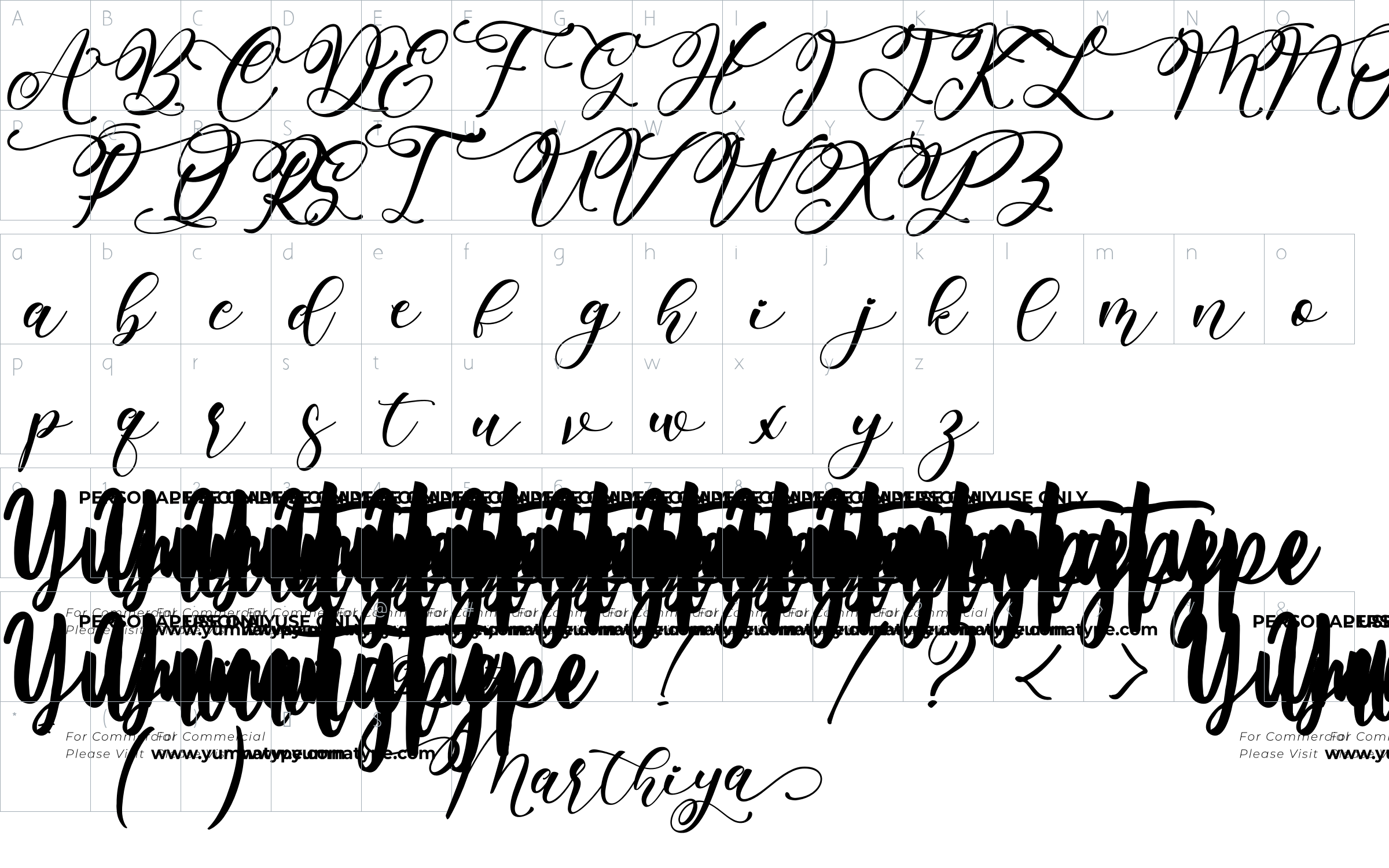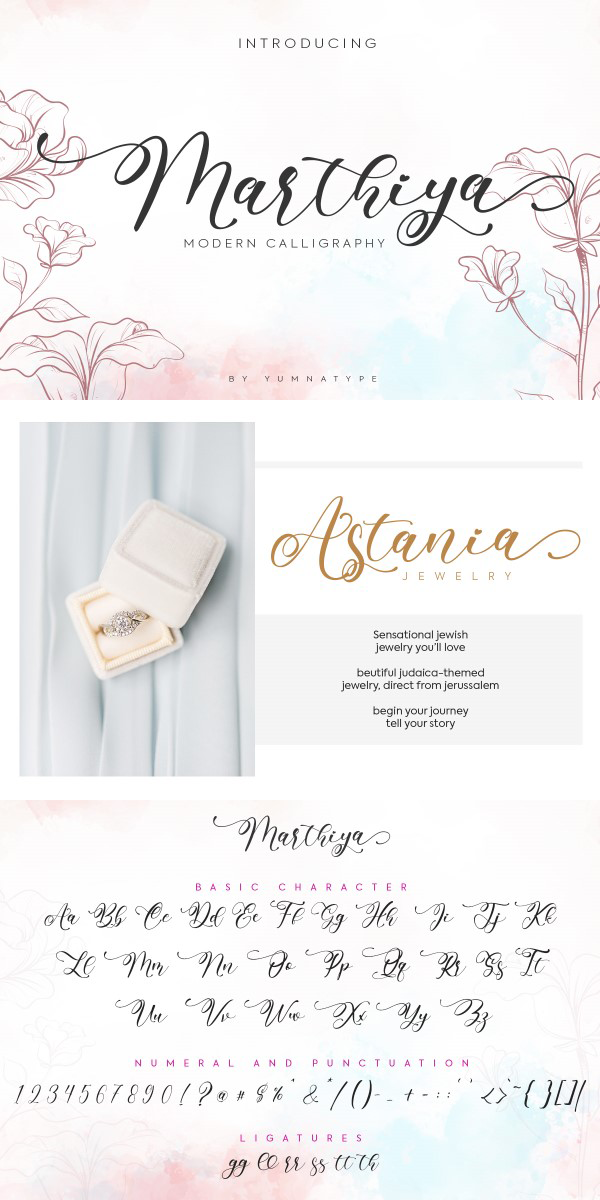
Marthiya Font
About Marthiya
Say hello to Marthiya Script.
Marthiya is a beautiful and modern script.
It brings a beautiful and modern typeface that best used for weddings, branding, logotype, and quotes.:
-6 Ligatures
-115 Beautiful Alternates + Swashes
-Beginning Swash and Ending Swashes (a-z)